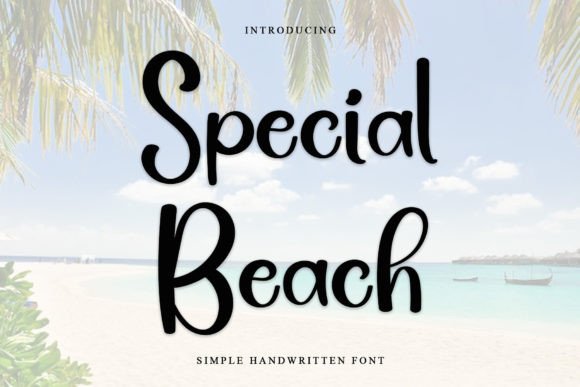
**Special Beach Font: A Seashore Serenade for Your Design Endeavors**
Immerse yourself in the tranquil allure of Special Beach Font, a captivating and exquisitely crafted handwritten font that evokes the serene beauty of a sun-kissed shoreline. With its graceful strokes, elegant curves, and timeless charm, Special Beach Font promises to elevate your creative projects to new heights of sophistication and allure.
**Unleash the Magic of Special Beach Font**
Journey into a realm of endless possibilities with Special Beach Font, the ultimate font for designers seeking to infuse their work with a touch of seaside serenity. Imagine your words dancing across the page, each letter a grain of sand whispering tales of distant shores and salty kisses. Let Special Beach Font carry your audience away to a world of tranquility and inspiration, where creativity flows like the gentle waves against the shore.
**A Font As Versatile as the Sea Itself**
Dive into the boundless versatility of Special Beach Font, a font that adapts effortlessly to a myriad of design styles. Its elegant script effortlessly enhances everything from wedding invitations and branding materials to social media posts and website designs. Watch as your designs transform into captivating works of art, each letter a brushstroke painted with the colors of the sea and sky.
**Illuminate Your Designs with Special Beach Font**
Harness the captivating brilliance of LED displays when you pair them with Special Beach Font. This font's meticulously crafted characters shine with an ethereal luminescence, commanding attention and captivating audiences. Imagine your words lighting up the night like a constellation of stars, leaving an indelible mark on the minds of your viewers.
**A Font Steeped in Passion and Creativity**
Step into the world of PiPi Creative, the artistic minds behind Special Beach Font. With an unwavering dedication to excellence, PiPi Creative has poured their heart and soul into crafting this masterpiece. Each stroke, each curve, each detail has been meticulously designed to deliver an unparalleled font that resonates with beauty, elegance, and timeless appeal.
**A Font That Inspires and Enchants**
With Special Beach Font as your creative companion, prepare to embark on a journey of inspiration and enchantment. Let your imagination soar as you create designs that evoke the tranquility of a seaside retreat, the warmth of a summer breeze, and the boundless wonder of the ocean's embrace. Discover a world where creativity knows no bounds and your designs become a reflection of your unique artistic vision.